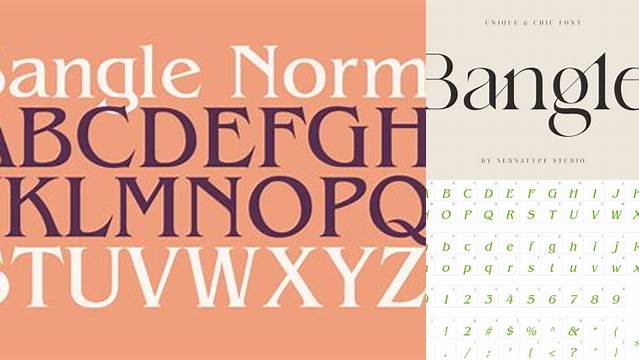
Hey guys! Are you on the hunt for the perfect font to spice up your design projects? Look no further! Today, we're diving deep into the world of Bangle Font – a unique and stylish typeface that can add a touch of elegance and personality to anything you're working on. Whether you're a seasoned designer or just starting out, understanding how to find, download, and effectively use this font will be a game-changer. So, let's get started!
1. What is Bangle Font?
So, what exactly is Bangle Font? Well, it’s a modern typeface known for its distinctive curves and stylish appearance. Think of it as that friend who always knows how to dress well – Bangle Font brings a touch of sophistication to any project. It’s often used in branding, logos, and creative designs where a touch of elegance is needed. Imagine a sleek, contemporary feel mixed with a bit of playful charm; that's Bangle Font in a nutshell. It stands out because it’s not your typical run-of-the-mill font; it has character and flair, making it a favorite among designers looking to add a unique touch. The beauty of Bangle Font lies in its versatility – it can be both professional and fun, depending on how you use it. You can find it used in everything from high-end fashion branding to quirky, creative projects. Its legibility and aesthetic appeal make it a great choice for a wide range of applications, whether you're working on a website, a poster, or even a book cover. Bangle Font’s distinctive design is often characterized by its rounded terminals and smooth, flowing lines, making it visually appealing and easy on the eyes. Plus, the availability of different weights and styles allows you to customize your design to fit your specific needs. For instance, a bolder weight can make a strong statement in headlines, while a lighter weight can be perfect for body text. In essence, Bangle Font is more than just a typeface; it’s a design element that can elevate your project and help you communicate your message with style and grace. So next time you’re looking for a font that stands out and adds a touch of sophistication, remember Bangle Font – it might just be the perfect choice for your next project.
8. Bangle Font for Logo Design
Using Bangle Font for logo design can give your brand a unique and memorable identity, guys. A well-chosen font can communicate your brand's personality and values, and Bangle Font, with its elegant and stylish appearance, can be a great choice for brands that want to project a sense of sophistication and creativity. When using Bangle Font for logo design, consider the overall aesthetic of your brand and the message you want to convey. Bangle Font works well for brands in industries such as fashion, beauty, lifestyle, and creative services. It can also be a good choice for businesses that want to appeal to a younger, more design-conscious audience. When designing a logo with Bangle Font, keep it simple and memorable. Avoid using too many decorative elements or complex typography. The font should be legible and recognizable, even at small sizes. Experiment with different weights and styles of Bangle Font to see which one best suits your brand. A bolder weight can make a strong statement, while a lighter weight can create a more delicate and refined look. You can also customize the font by adjusting the letter spacing, kerning, and other typographic settings. Consider using Bangle Font in combination with other fonts to create a unique and balanced logo. A simple sans-serif font can complement Bangle Font and create a modern and professional look. Make sure that the colors you use in your logo complement the font and reinforce your brand's identity. A well-designed logo with Bangle Font can help your brand stand out from the competition and create a lasting impression on your customers. So, start experimenting with Bangle Font in your logo design projects and see how it can elevate your brand!
9. Bangle Font in Website Design
Integrating Bangle Font into website design can significantly enhance the visual appeal and user experience, guys. A carefully selected font can communicate your brand's message and create a cohesive design that reflects your website's purpose. When using Bangle Font in website design, consider the overall tone and style of your site. Bangle Font works well for websites that want to project a sense of elegance, creativity, or modernity. It can be a great choice for websites in industries such as fashion, beauty, design, and lifestyle. When incorporating Bangle Font into your website, use it sparingly and strategically. Avoid using it for large blocks of text, as it can be difficult to read on screen. Instead, use it for headlines, subheadings, and other prominent text elements to draw attention and create visual interest. Make sure that the font is legible and accessible to all users. Choose a font size and color that provide sufficient contrast with the background and ensure that the text is easy to read on different devices and screen sizes. Use CSS to control the appearance of Bangle Font on your website. You can adjust the font size, color, line height, letter spacing, and other typographic properties to create a visually appealing and readable design. Consider using web fonts to ensure that Bangle Font is displayed correctly on all browsers and devices. Web fonts are hosted on a server and downloaded to the user's browser when they visit your website. This ensures that the font is displayed consistently, regardless of whether the user has the font installed on their computer. Bangle Font can be a valuable asset in your website design toolkit. By using it thoughtfully and strategically, you can create a website that is both visually appealing and user-friendly.
30. Bangle Font: Creative Inspiration and Use Cases
Need some creative sparks for using Bangle Font? Let's brainstorm, guys! Think wedding invitations, where its elegance can really shine. How about logos for chic boutiques or beauty brands? It's a perfect fit! Use it on website headers to grab visitors' attention. Or try it on social media graphics to make your posts pop. Book covers, posters, and even product packaging can benefit from Bangle Font's unique style. Don't be afraid to mix it with other fonts for a cool contrast. And remember, less is often more. Use Bangle Font sparingly to highlight key messages. Get creative and see how you can use Bangle Font to elevate your designs!